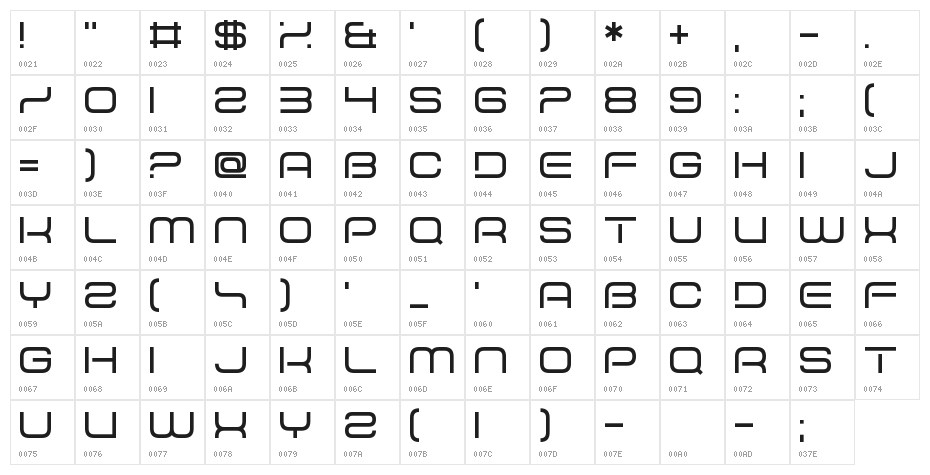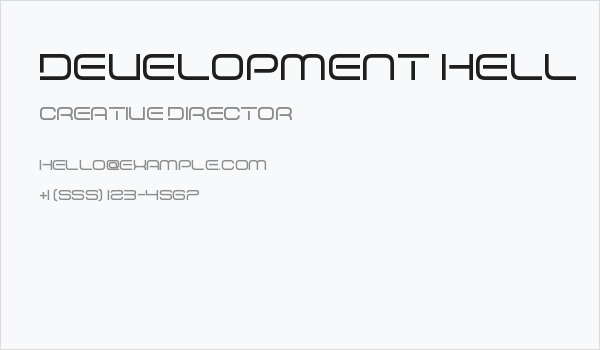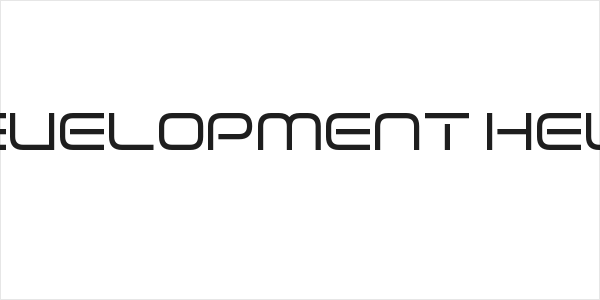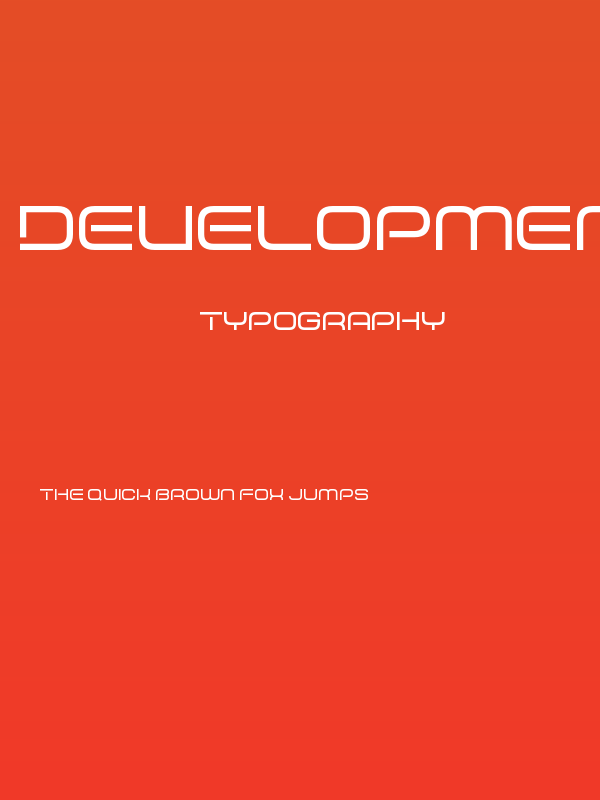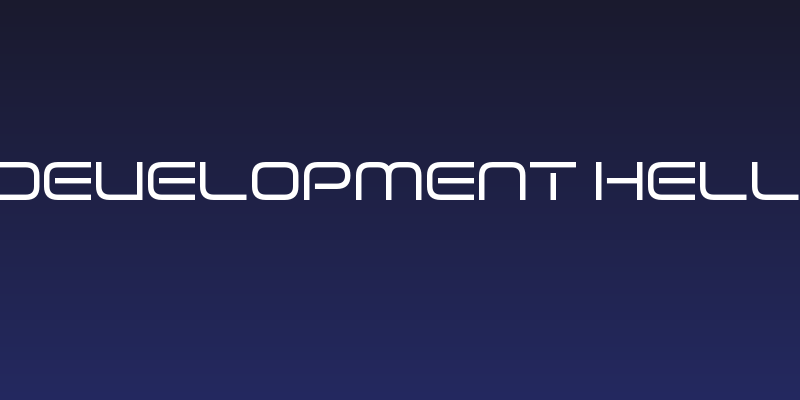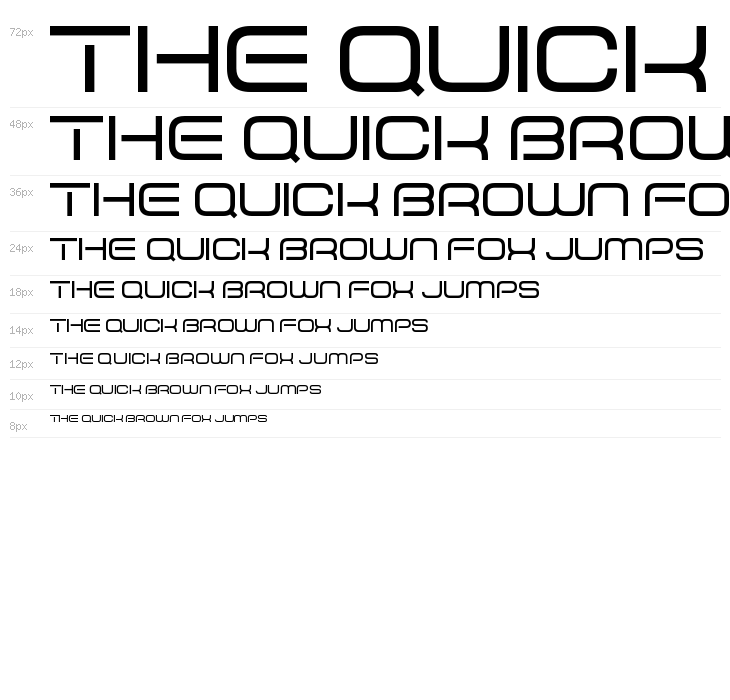
Development Hell Font
| Категория | Futuristic |
| Область применения | Logos, Headlines, Digital Interfaces |
| Рекомендуемые проекты | Ideal for technology branding, futuristic designs, digital interfaces, and modern advertising campaigns. |